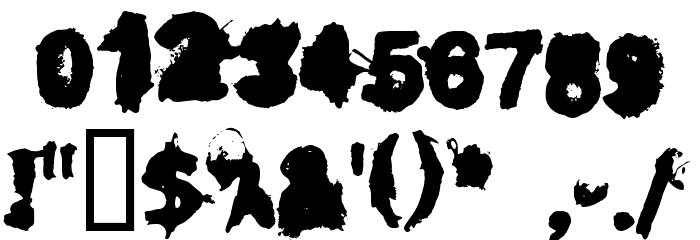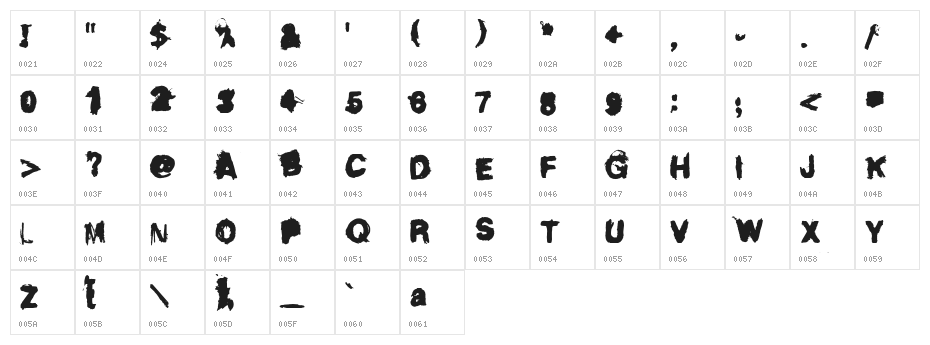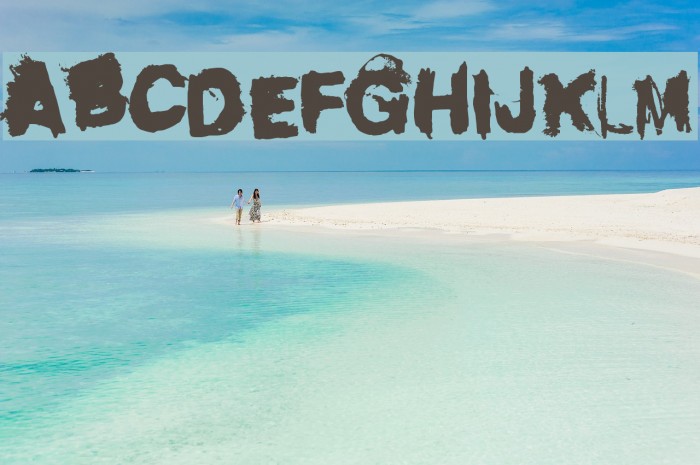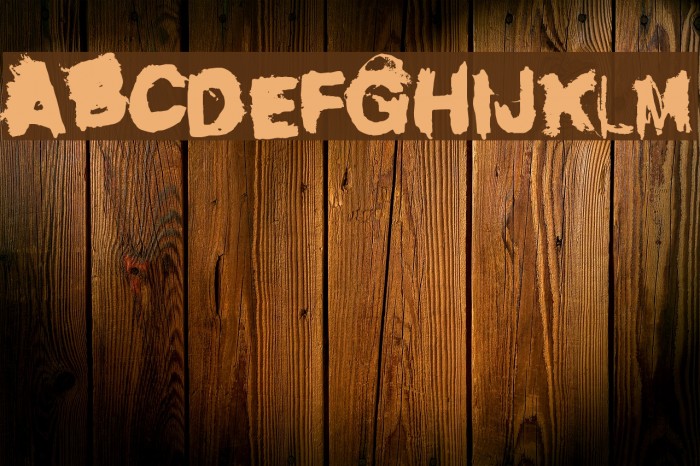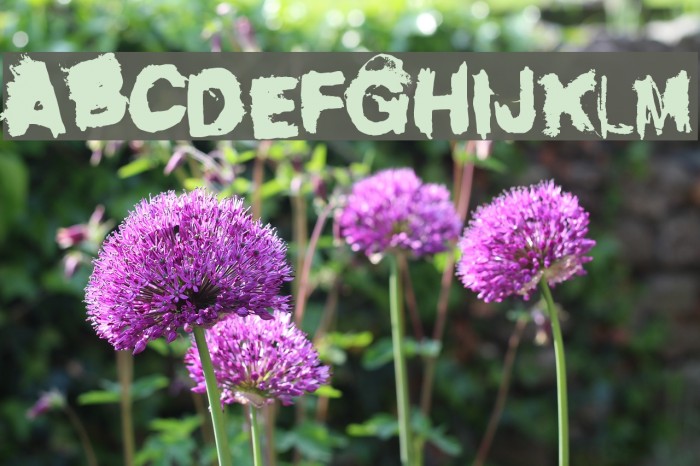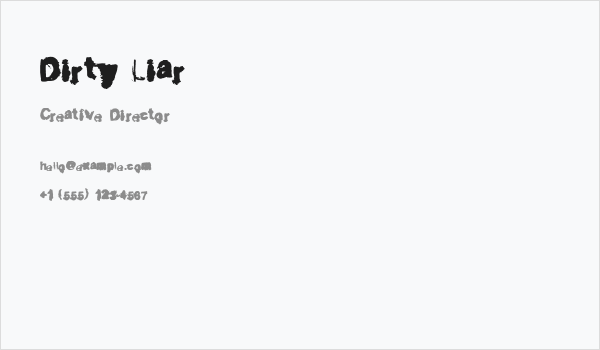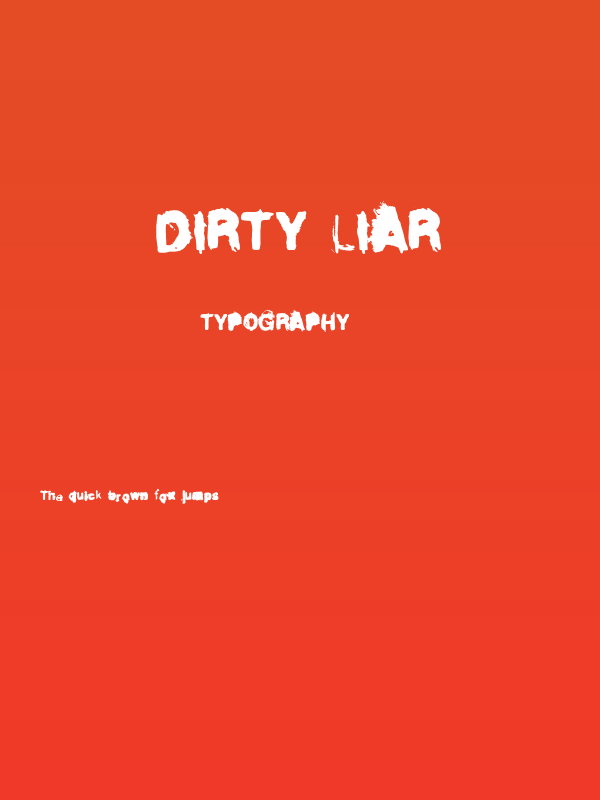
Dirty Liar Font
Dirty Liar Description
This font features a grungy, distressed style with a bold and impactful appearance. The characters are irregular and appear as if they have been painted with a rough brush, giving them a unique, textured look. The uppercase and lowercase letters maintain a consistent style, with the uppercase being slightly more pronounced. Numbers and special characters follow the same rugged aesthetic, ensuring a cohesive design throughout. This font's chaotic and raw nature makes it stand out, perfect for projects that require a bold statement.
| Overall Style | Grunge, Edgy, Artistic |
| Proposed Projects | Ideal for album covers, posters, streetwear branding, and edgy graphic design projects. |